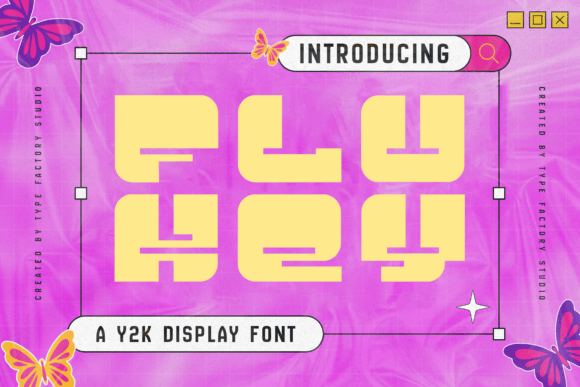
Get Ready to Blast Off into the Digital Past
Have you ever stumbled upon an old website or video game from the early 2000s and been instantly transported back to a time of pixelated bliss? For many designers, the nostalgia of Y2K-inspired design is a major creative spark. The era’s bold, futuristic aesthetic continues to influence modern design, and we’re excited to introduce a typeface that embodies this spirit.
Meet the Flukey Font, a display typeface that’s equal parts retro and revolutionary. With its chunky geometric letterforms and distinctive cuts, Flukey Font is perfect for designers looking to add a bold, nostalgic touch to their projects. Whether you’re working on a poster, branding campaign, or digital graphic, this versatile typeface is sure to make a lasting impression.
Key Features of Flukey Font
- Unique Characteristic: Distinctive, whimsical style featuring intricate details and a playful touch, making it perfect for creative projects.
Flukey Font Review
Overall, I’m quite pleased with Flukey Font’s playful personality and eclectic flair ✨. The font’s quirky design elements make it perfect for creative projects that need a bit of whimsy. It’s also relatively easy to read, even at smaller font sizes, which is a plus.
- The font’s unique character set, including a range of quirky symbols and icons, adds a lot of visual interest ✨.
- Flukey Font is highly customizable, allowing designers to tweak the font’s style to fit their specific project needs ✨.
- The font is relatively lightweight, making it easy to use in web and mobile applications ✨.
- The font’s bold styles can be a bit too bold, overpowering the surrounding text at times ⚠️.
- The font’s ligatures can be a bit tricky to use, requiring designers to adjust the spacing carefully to achieve the desired effect ⚠️.
- The font’s character set is not as extensive as some other fonts, which may limit its use in certain projects ⚠️.
Overall, I’d give Flukey Font 4 out of 5 stars. While it’s not perfect, its unique personality and customization options make it a great choice for designers looking for a bit of flair in their projects. Just be sure to use it judiciously and with a keen eye for detail to get the most out of it.
Getting the Most Out of Flukey Font
To get the most out of Flukey Font, try the following tips:
- Use Flukey Font for headings and titles to add a touch of whimsy to your designs.
- Pair Flukey Font with other fonts to create a unique and eye-catching visual style.
- Experiment with different font sizes and colors to add emphasis and create visual interest.
Flukey Font is perfect for:
- Designing children’s books and educational materials.
- Creating playful and whimsical marketing materials.
- Adding a touch of personality to social media graphics and posts.
Alternatives to Flukey Font for Designers
Compared to Flukey Font, Great Vibes is more refined and sophisticated, making it a better choice for high-end projects. While Flukey Font has a playful, handwritten feel, Great Vibes is more polished and sophisticated.
Compared to Flukey Font, Carolyna Pro is more modern and sleek, making it a better choice for projects that require a contemporary feel. While Flukey Font has a playful, handwritten feel, Carolyna Pro is more polished and refined.